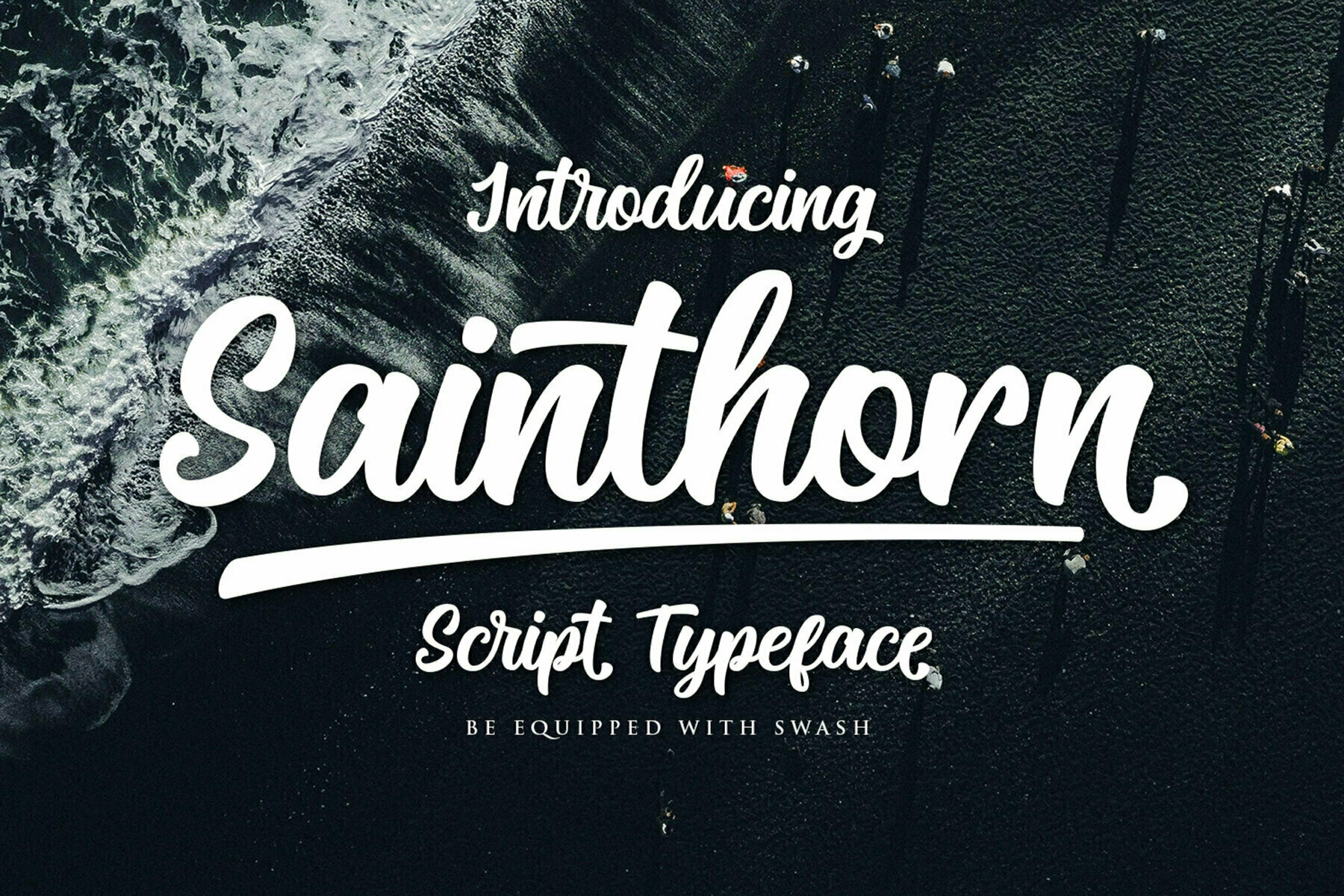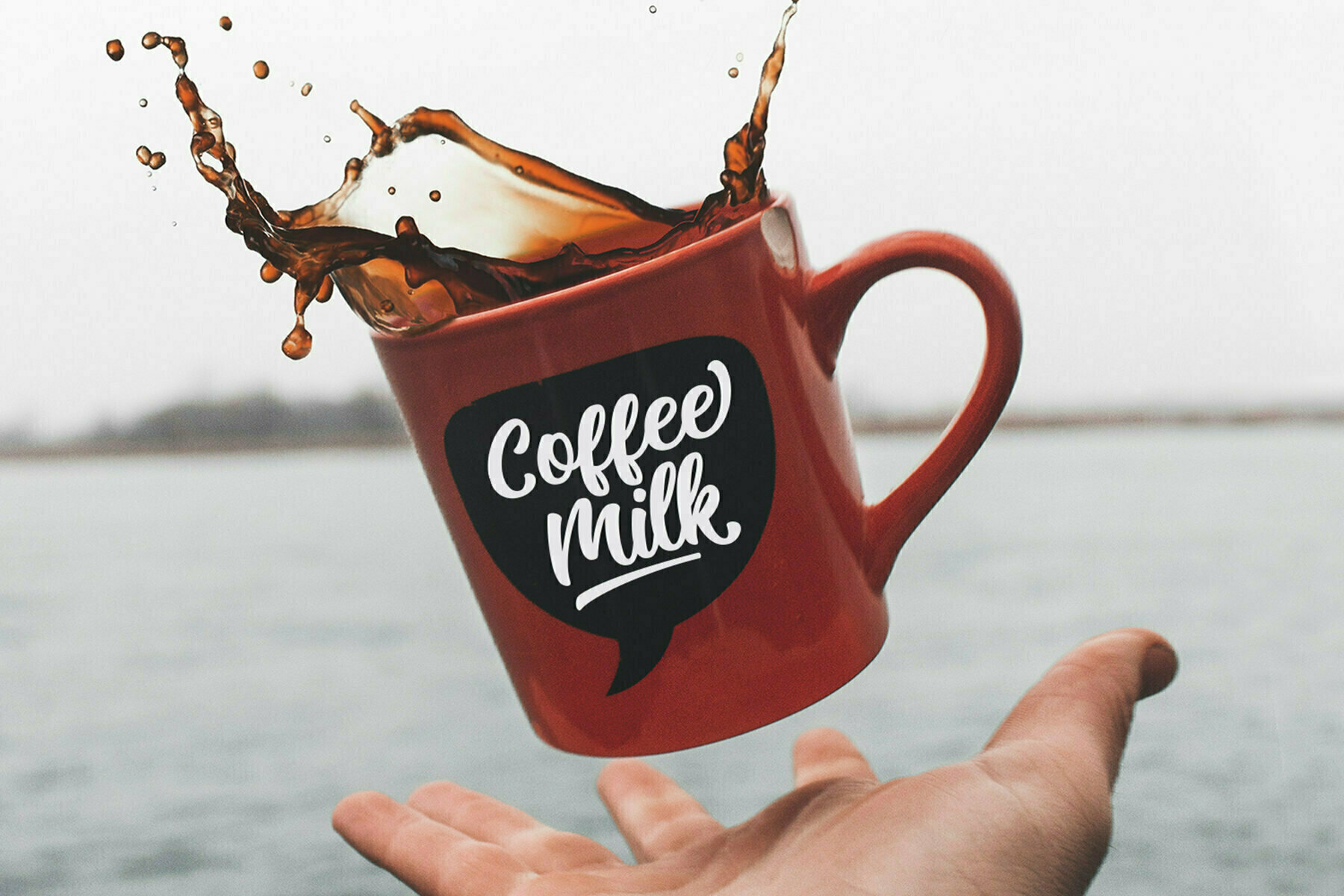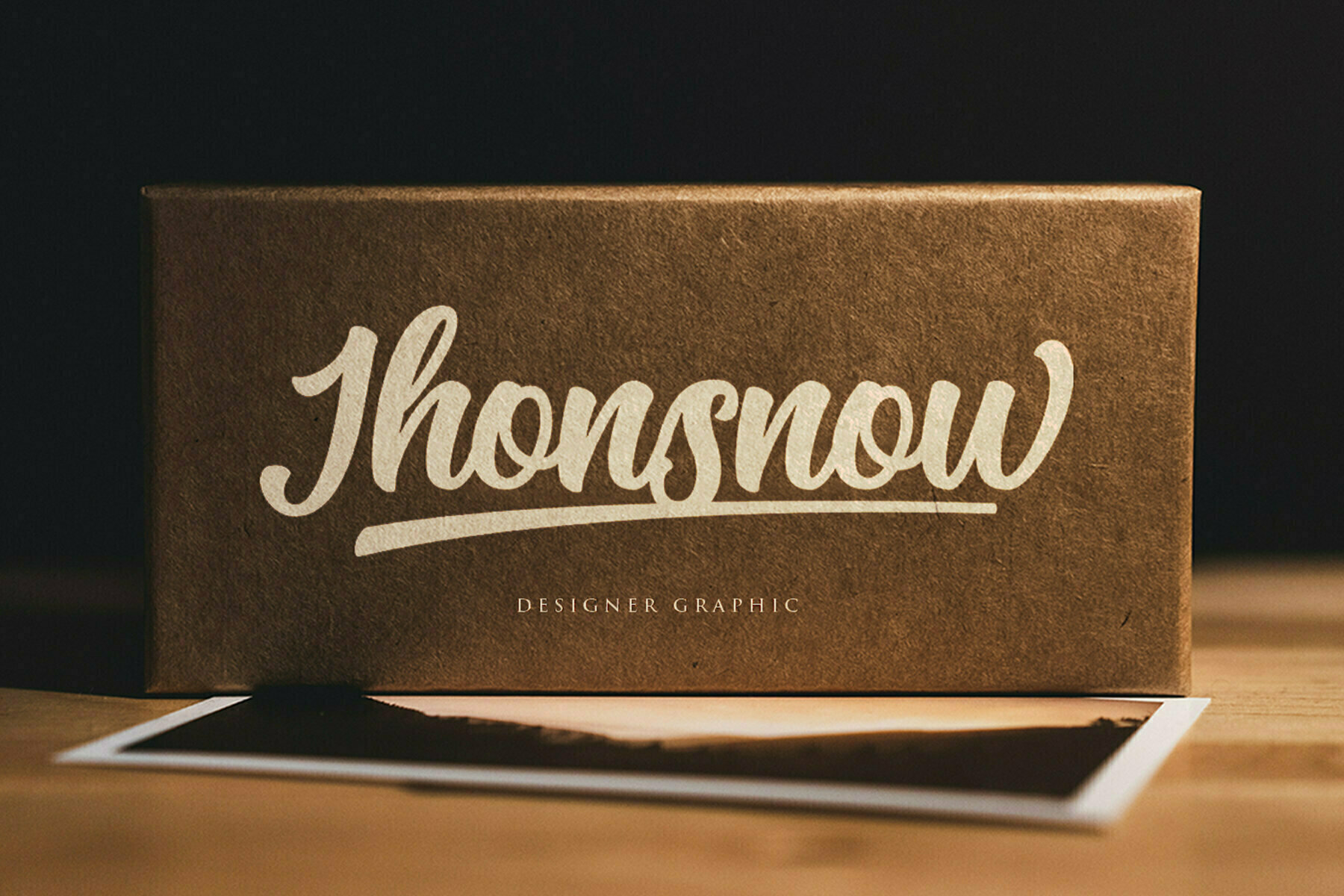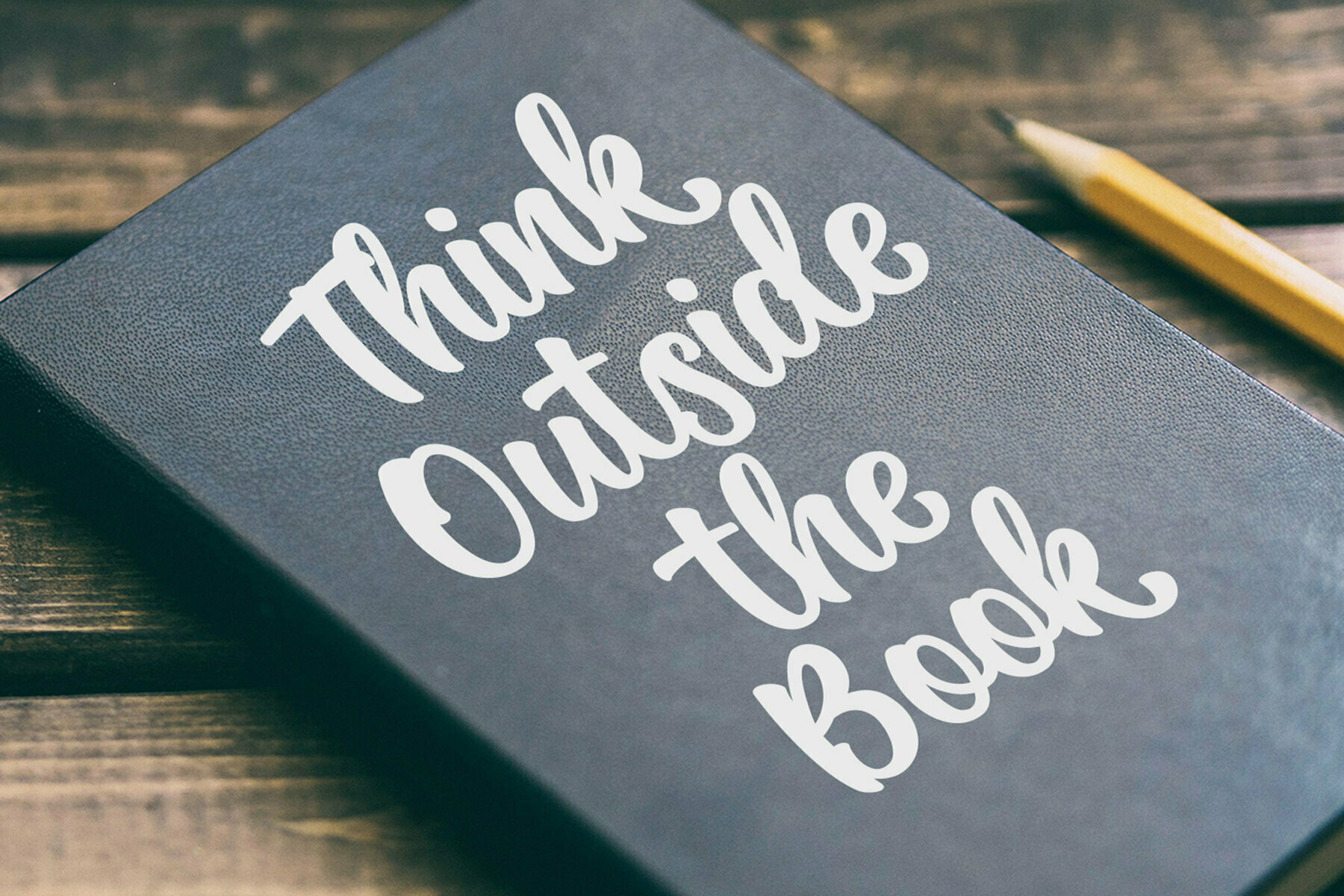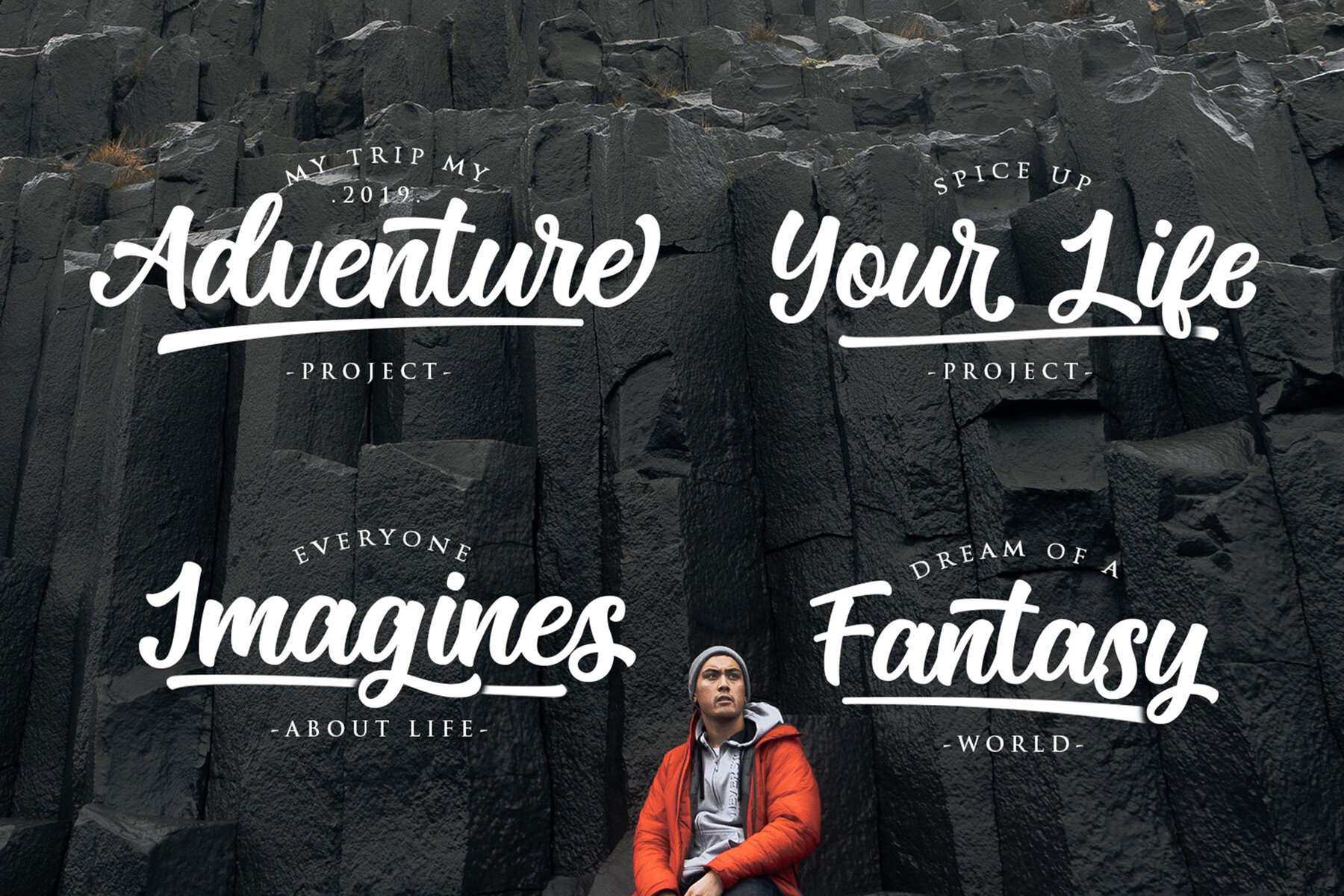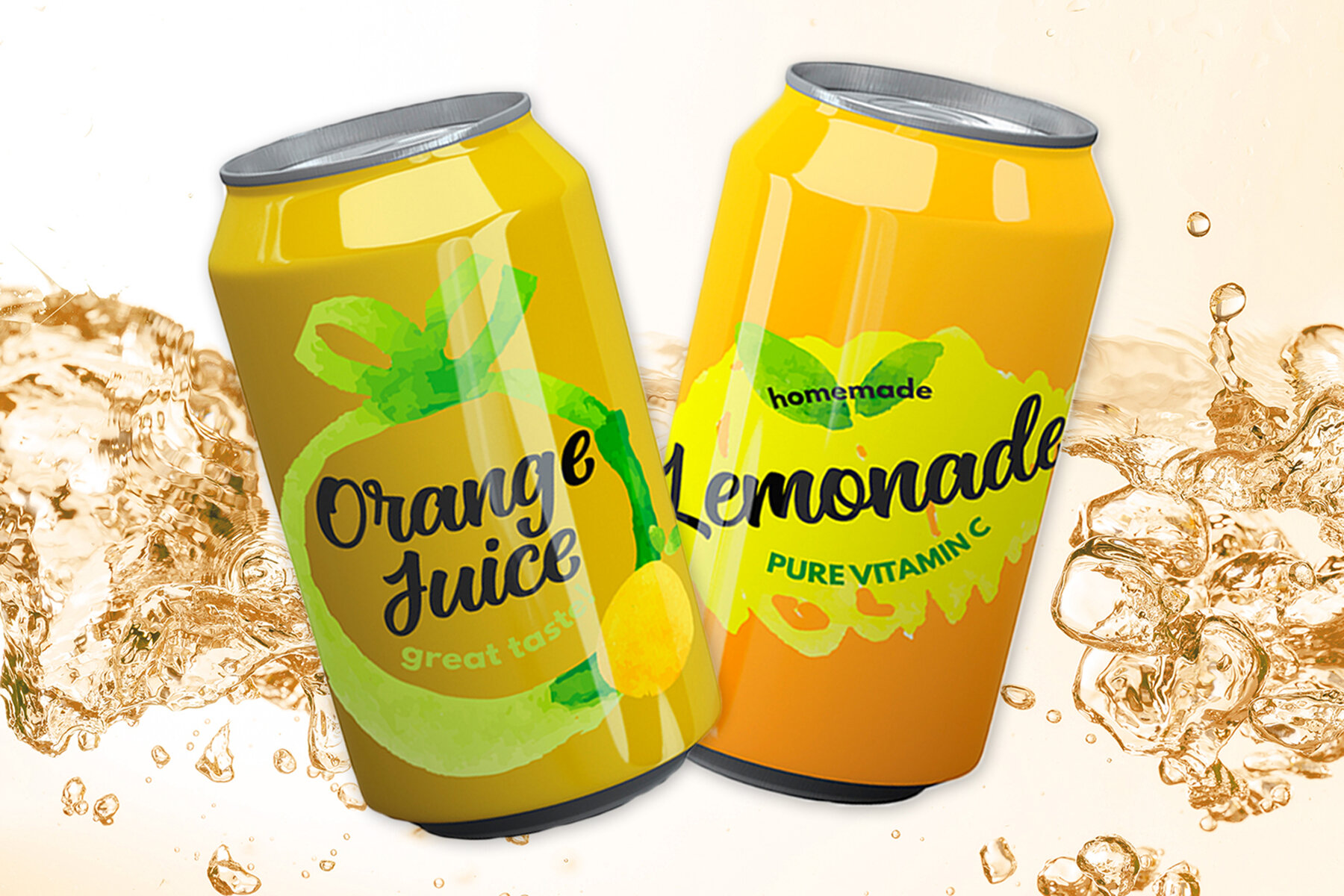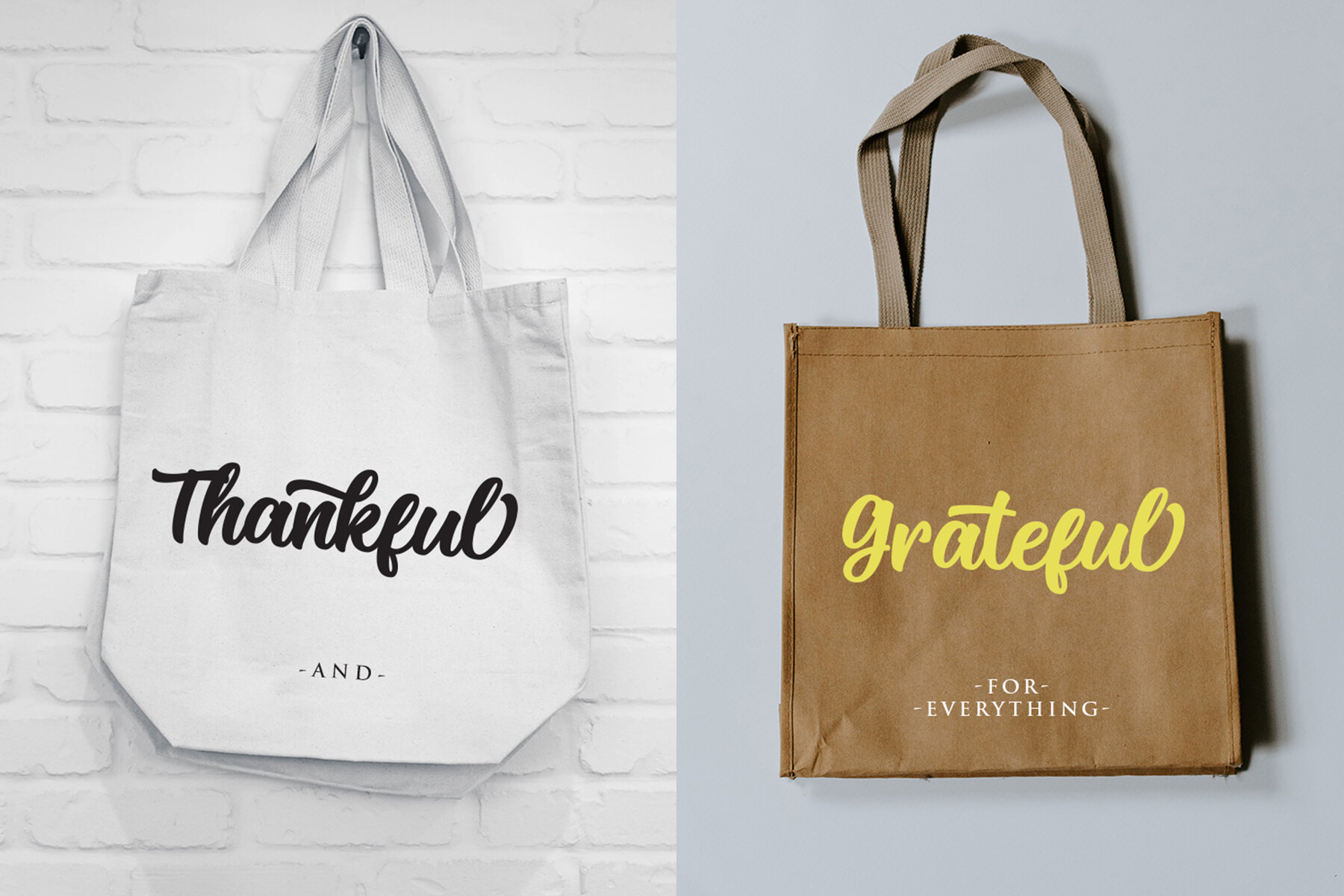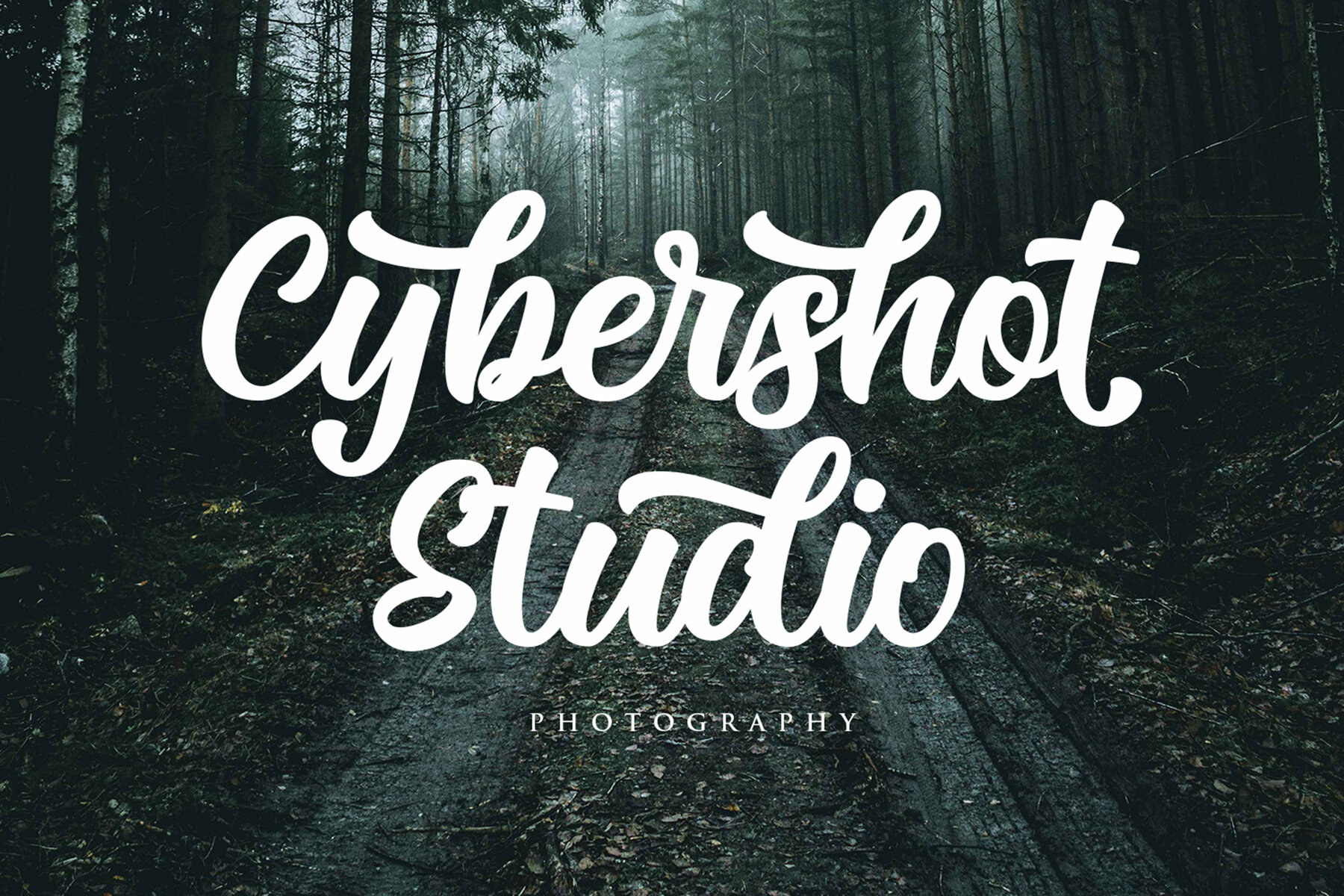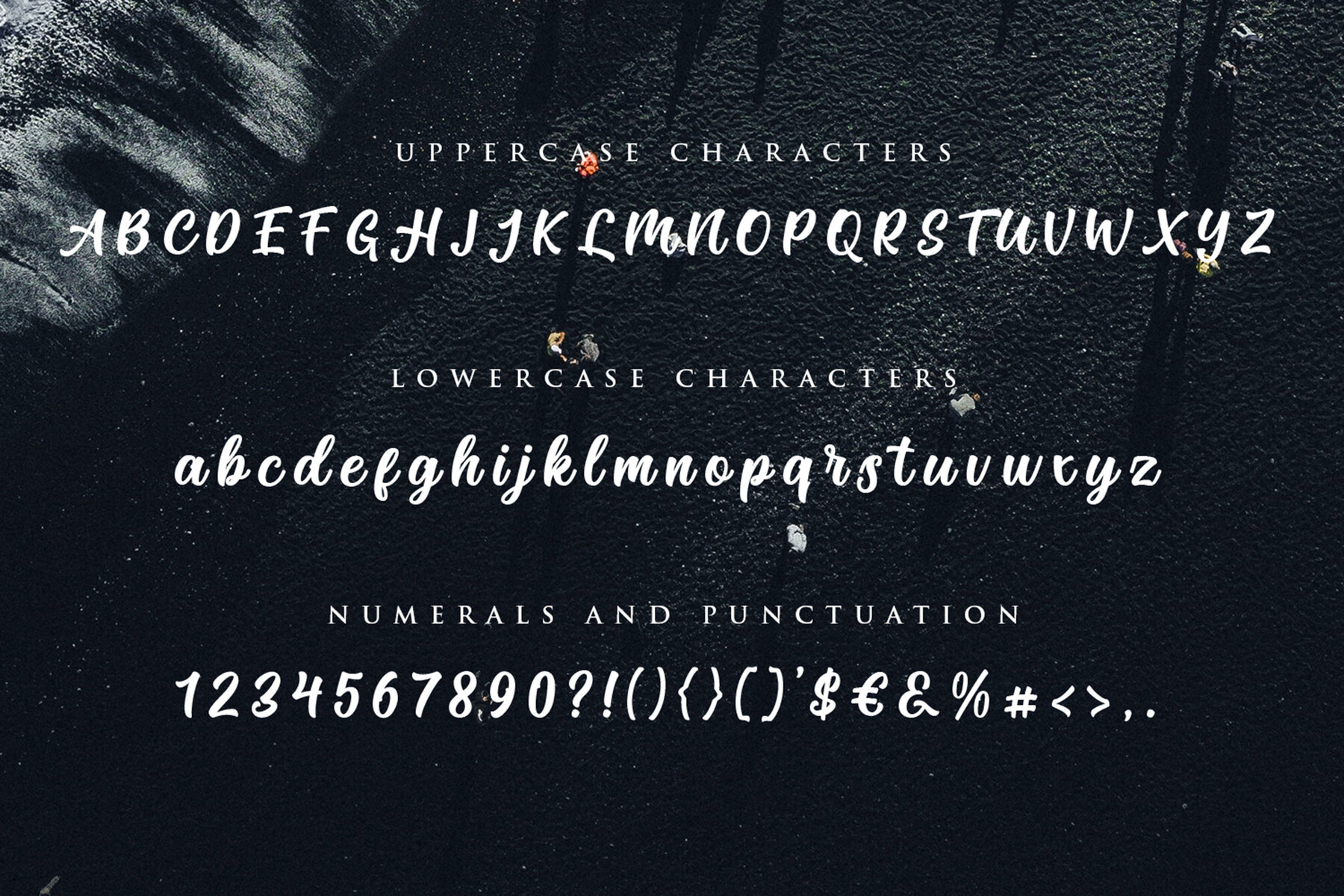
Sainthorn Font
Sainthorn Regular
Sainthorn Swash
Sainthorn by Maculinc offers a robust typeface that balances readability and style effortlessly. Its bold, easy-to-read characters are perfect for various applications, from apparel design to wedding invitations, providing a comfortable visual experience. The typeface encourages creativity, allowing designers to mix and match various alternative characters and swashes to achieve a unique aesthetic. Explore these dynamic options to enrich your projects with a personal touch.Sainthorn: Bold Typeface for Versatile Design